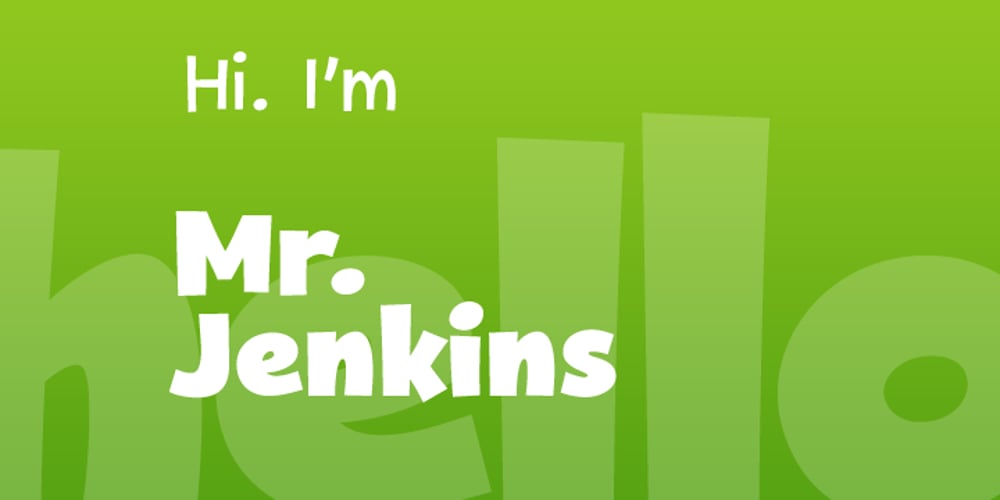
Mr. Jenkins Font Family was designed by Jeff Rubow and published by Lindstrom Design. Mr. Jenkins contains 4 styles and family package options. Mr. Jenkins is designed to fill the void between the crazy, wacky and reckless comic style fonts, and the standard boring but very readable sans-serif typefaces. It makes for a distinctive bold headline, but is also quite legible at small sizes. It’s just off kilter enough to not take itself too seriously. A deceptively care-free font, each character was carefully drawn. The spacing and kerning of each letter and letter combination were painstakingly considered. Particular attention was paid to maintaining consistent optical weights and a spontaneous appearance. Mr. Jenkins is inspired heavily by humanist sans-serif faces such as Myriad and Lucida Sans, with its open apertures, and low contrast but almost calligraphic line weights. The lowercase a is single story in the italic face, but two story in the regular face. It contains uncommon features amongst many “quirky” fonts, including a full set of latin accented characters, lining and proportional figures, math symbols, standard fractions, foreign currency marks, contextual alternates, and even a few ligatures.